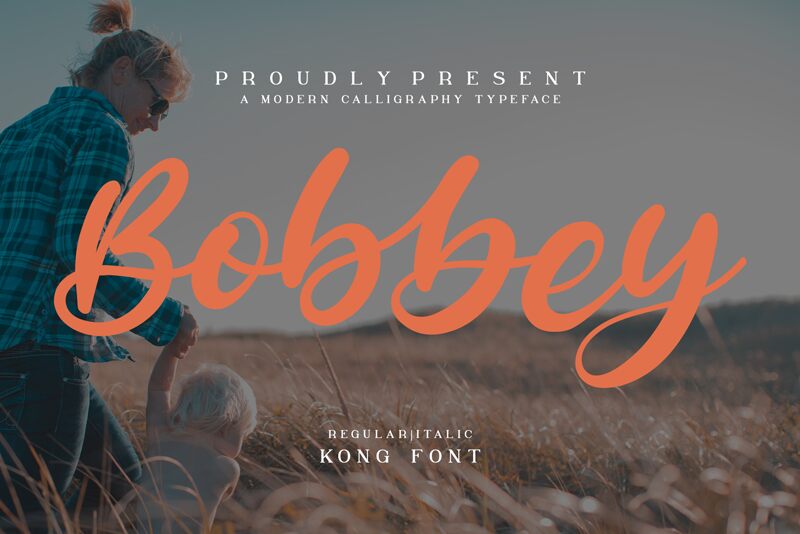
Bobbey font family designed by Kong Font is a free calligraphy font formed by extravagant curves to create a stylish design. It was inspired by the a thousand years old art of calligraphy. The digital font version of this art is used nowadays for different purposes in a wide range of fields and professions. Bobbey is glamourous and pretty, with a modern touch.